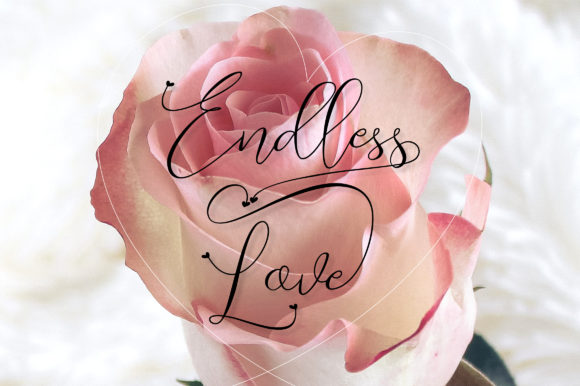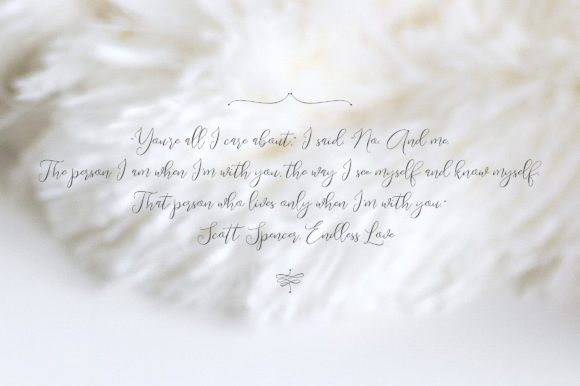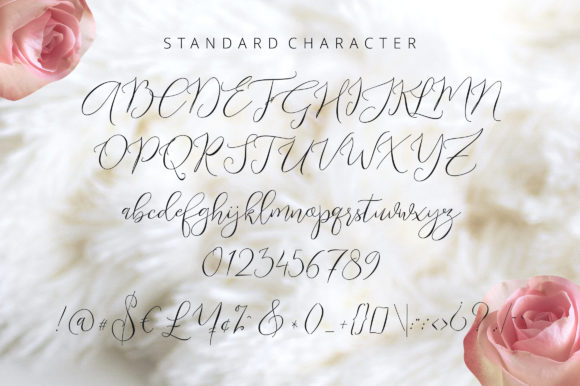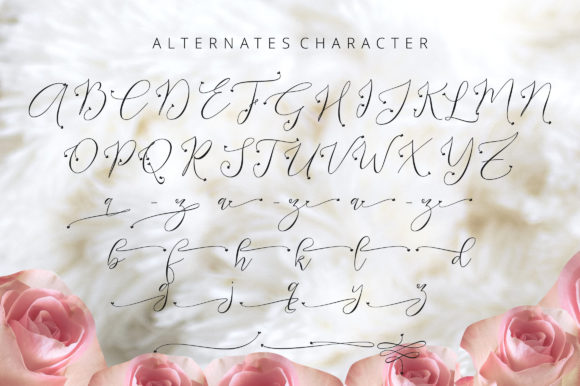
About Endless Script Font
“I knew from the start that I loved her and knew, as well, that I would never fall back from that love, never try, never want to.”
Endless is a feminine font with a modern script style. It’s perfect for many different projects: quotes, blog headers, watermarks, posters, weddings, photography, branding, logos, fashion, clothing, letters, invitations, stationery, and much more!